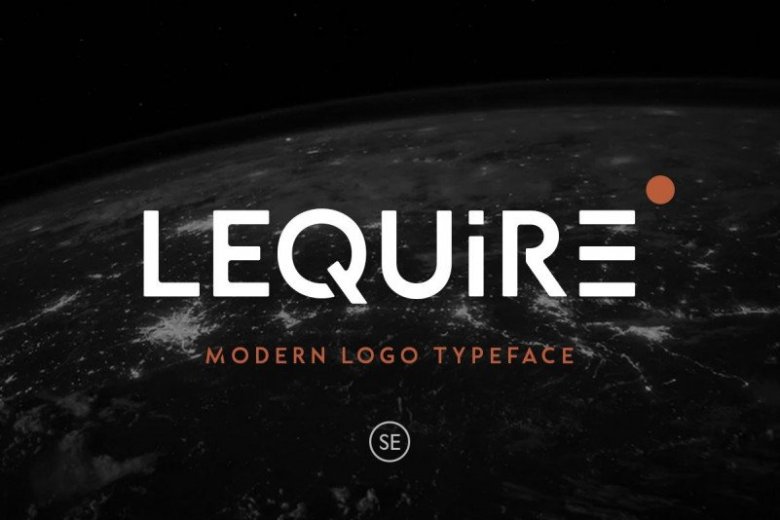
Lequire Display Font has a strong retro flavour and works well at large sizes and in strong colours alongside similarly strong, geometric graphics. Made from font designer named Sarid Ezra.
This typeface is a sans based font with unique lowercase that will make your design looks hi-tech and modern. You can use this font for any purpose, especially to make logotype. You can mix and match the uppercase and lowercase to make your logo more readable. This font also comes with outline style!